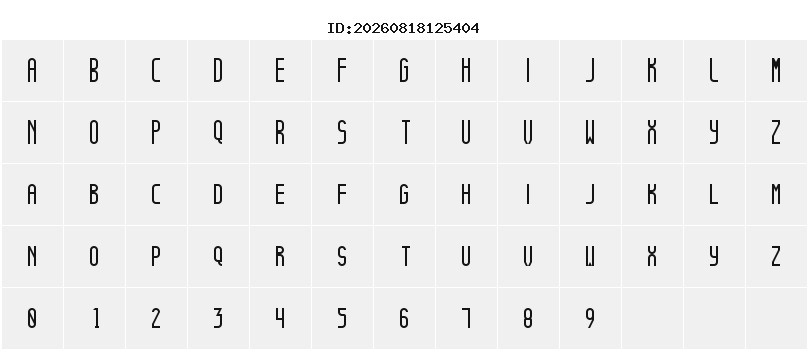
• Font Name: Smooth Elegant
• Designer: Jan P.
• Description: ‚ÄúSmooth Elegant‚Äù was built with FontStruct
About Smooth Elegant.ttf
Smooth Elegant.ttf is a modern, elegant sans-serif font designed for ultimate readability and visual harmony. Perfect for branding, headlines, web design, and print materials.